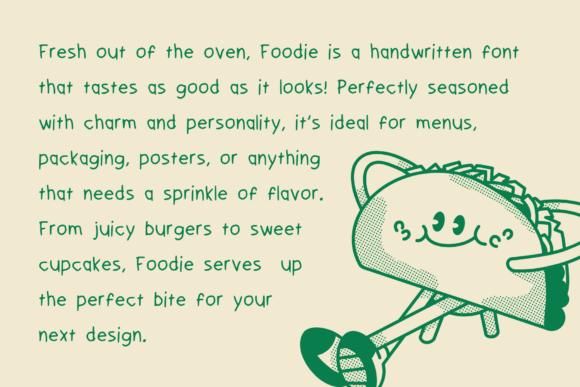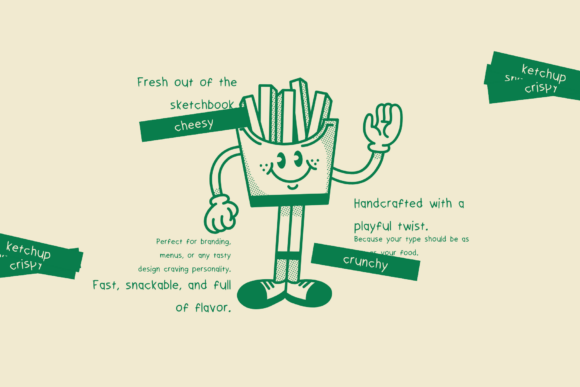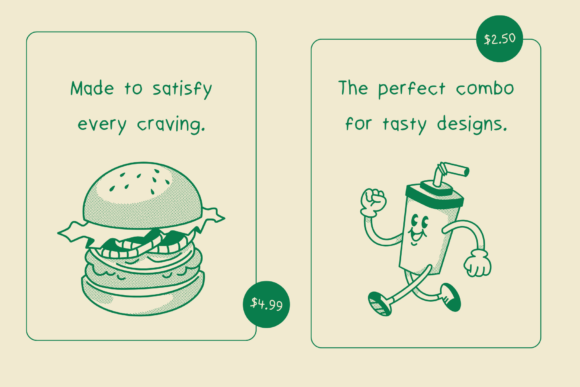
Foodie Font
Say hello to Foodie, a playful handwritten font inspired by the delicious world of food! With quirky, doodle-style characters and a casual handmade touch, this font is perfect for giving your designs a warm, friendly, and fun personality.Whether you’re working on a cafe menu, product packaging, sticker set, or logo design, Foodie adds a lighthearted flavor to any project. The font is fully PUA-encoded, making it easy to access all characters without additional software.Great for: ✔Branding for restaurants, bakeries & food trucks ✔ Children’s books and learning materials ✔ Printable quotes and invitations ✔ Social media graphics with a cute and informal tone